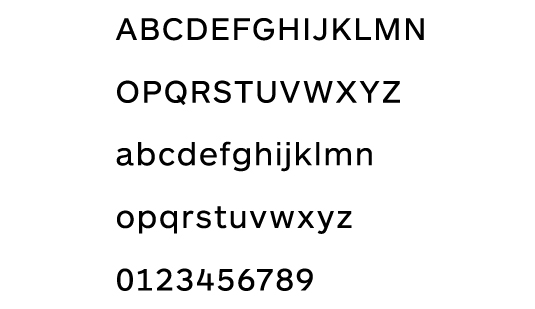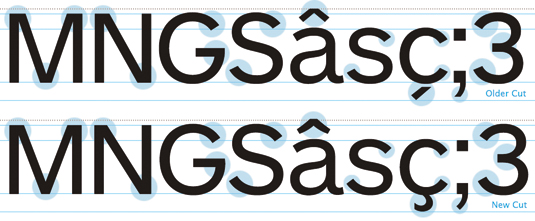
85. ARS Maquette
- Angus R Shamal, 1999/2010
ARS Maquette was designed in 1999 and released in 2001. It immediately became popular amongst the design community – something the designer Angus R Shamal puts down to "its clean and stylish simplicity". ARS Maquette is a sans-serif typeface that shares similarities to Akzidenz-Grotesk, "by having less stroke contrast with counters that are more open and a design with a relatively plain appearance".
In 2010, Shamal revisited the design of the typeface, "rehashing those 11 year old drawings and notes to help reevaluate the design and its principals," he says. The final result of his re-design was a Pro version of the typeface with OpenType features, italics, and wider language support.